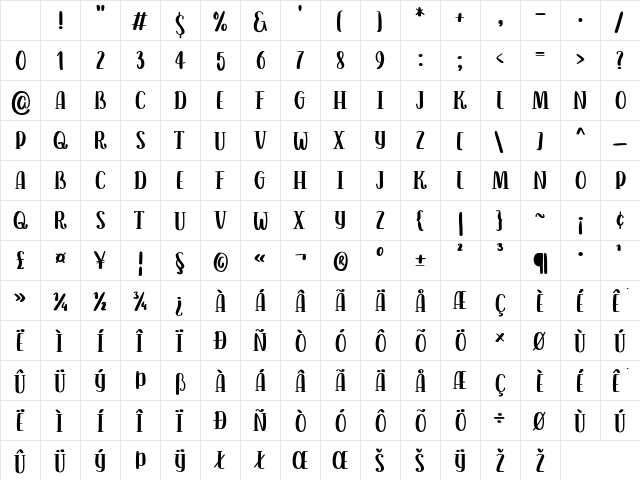
Complete Lucky Cider Regular glyph index. Displaying only characters natively supported by Lucky Cider Regular font.
Lucky Cider is a composed and adaptable typeface that performs quietly and consistently across a wide range of design contexts.